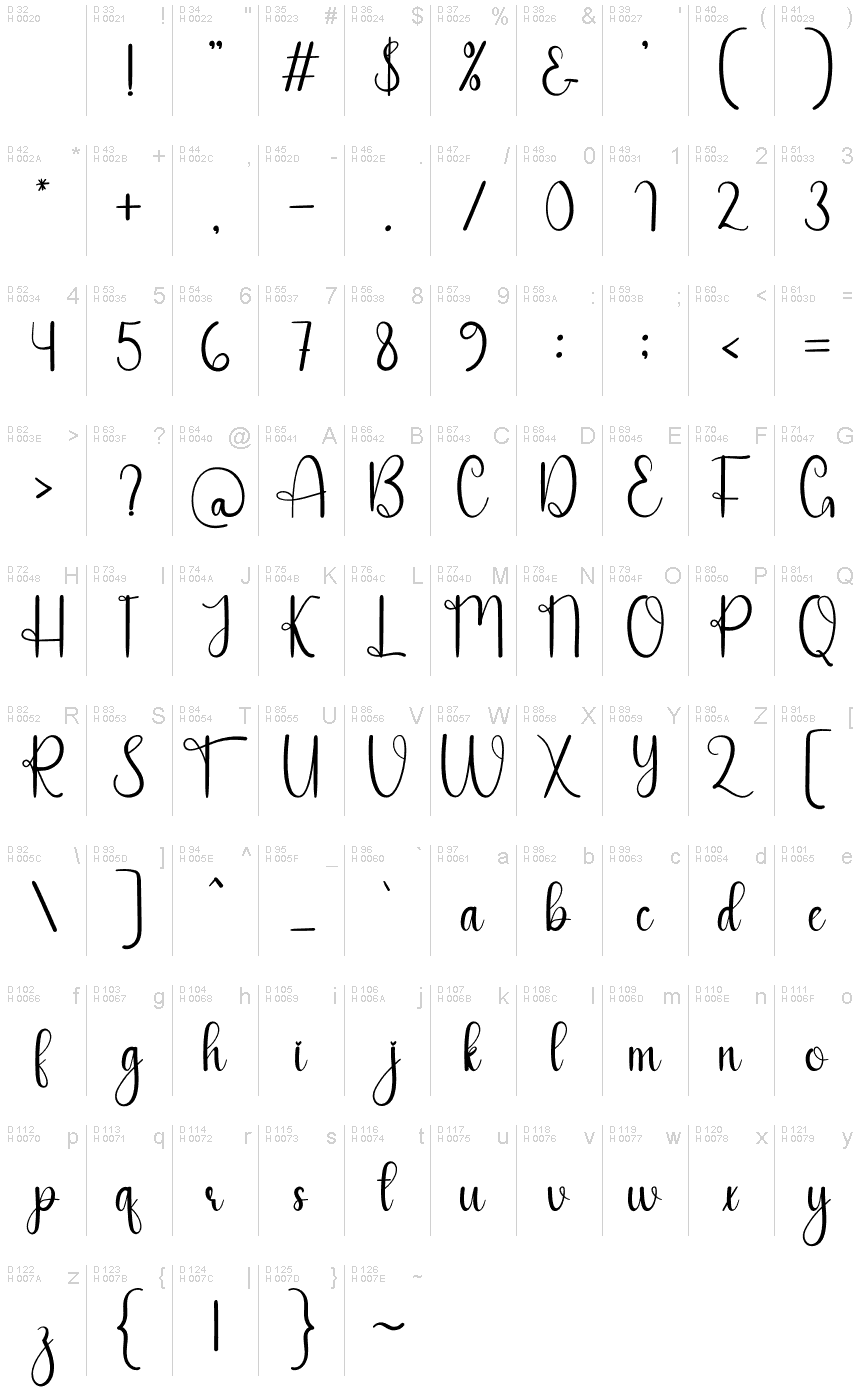
Dear Santa
Dear Santa, a charming creation by Scratchones, exudes the warmth and whimsy of handwritten correspondence. With its semi-light weight and semi-condensed width, this font offers a balance of delicate grace and playful intimacy. Its fluid lines and organic forms mirror the personal touch of an ink pen gliding across paper, making it ideal for projects that crave a human element.
The aesthetic appeal of Dear Santa lies in its ability to capture the nostalgic essence of holiday notes yet maintain versatility for various design needs. Whether crafting heartfelt greeting cards, personalized gifts tags, or evocative marketing materials, Dear Santa brings an element of bespoke elegance to any creative endeavor.
Embrace the inviting character of Dear Santa for your next project and let its distinct handwritten style convey sincerity and joy with every curve and flourish.
The aesthetic appeal of Dear Santa lies in its ability to capture the nostalgic essence of holiday notes yet maintain versatility for various design needs. Whether crafting heartfelt greeting cards, personalized gifts tags, or evocative marketing materials, Dear Santa brings an element of bespoke elegance to any creative endeavor.
Embrace the inviting character of Dear Santa for your next project and let its distinct handwritten style convey sincerity and joy with every curve and flourish.